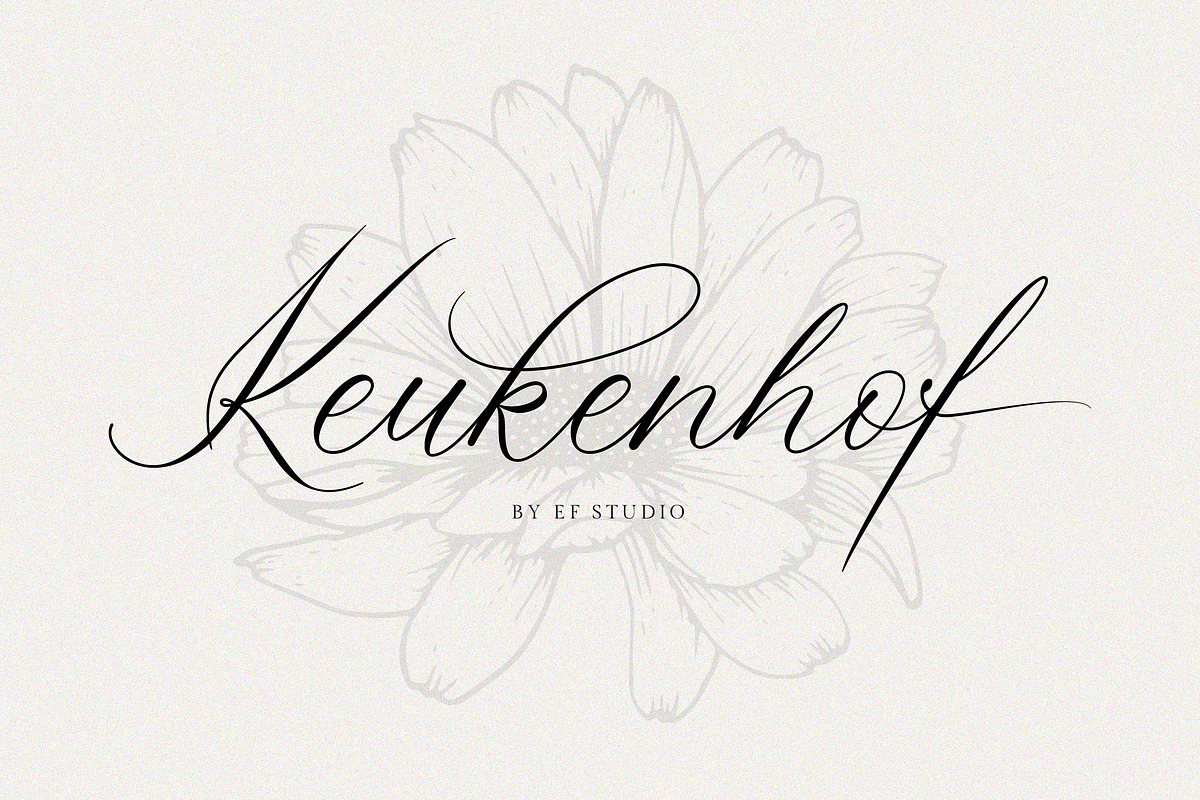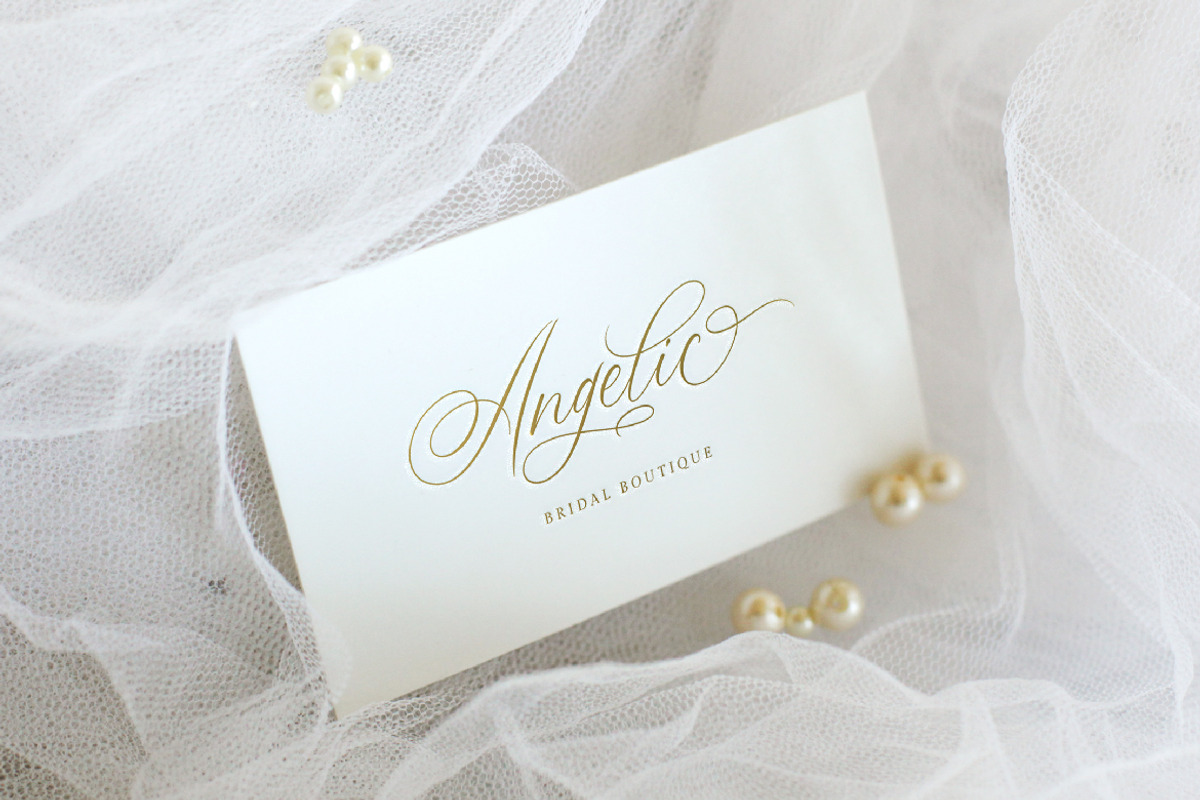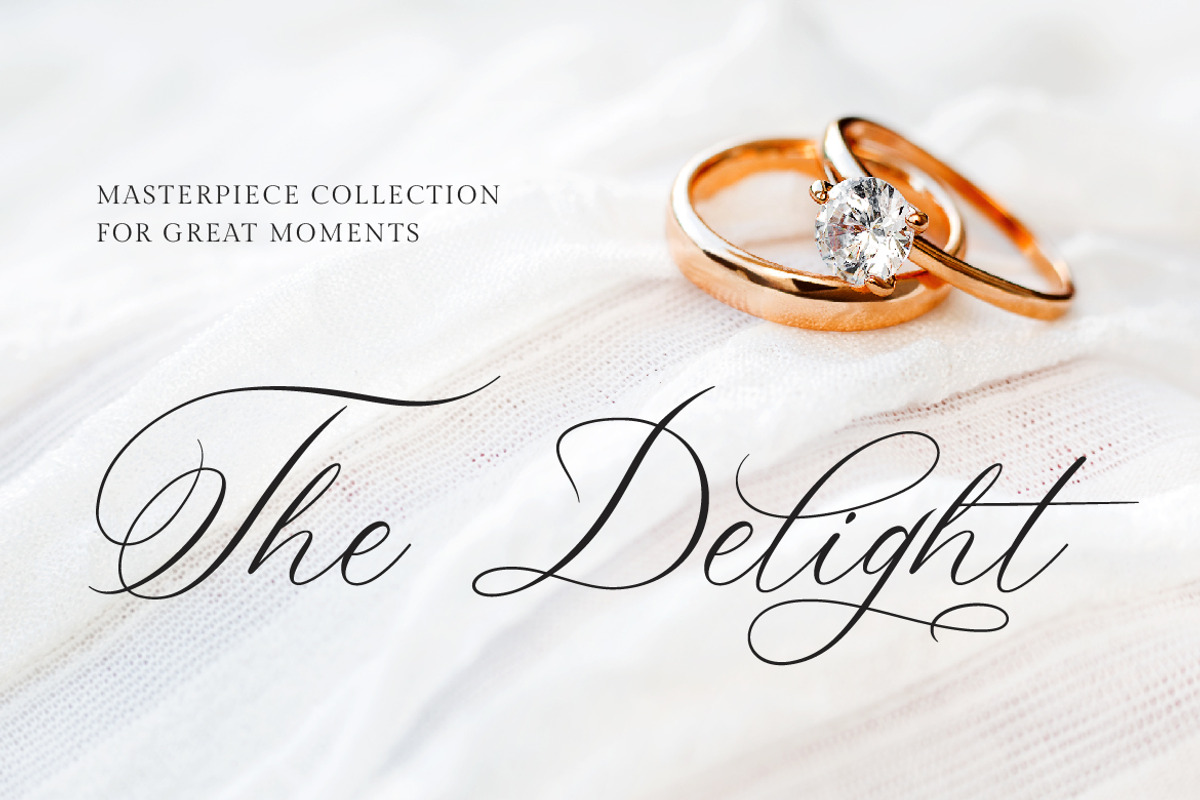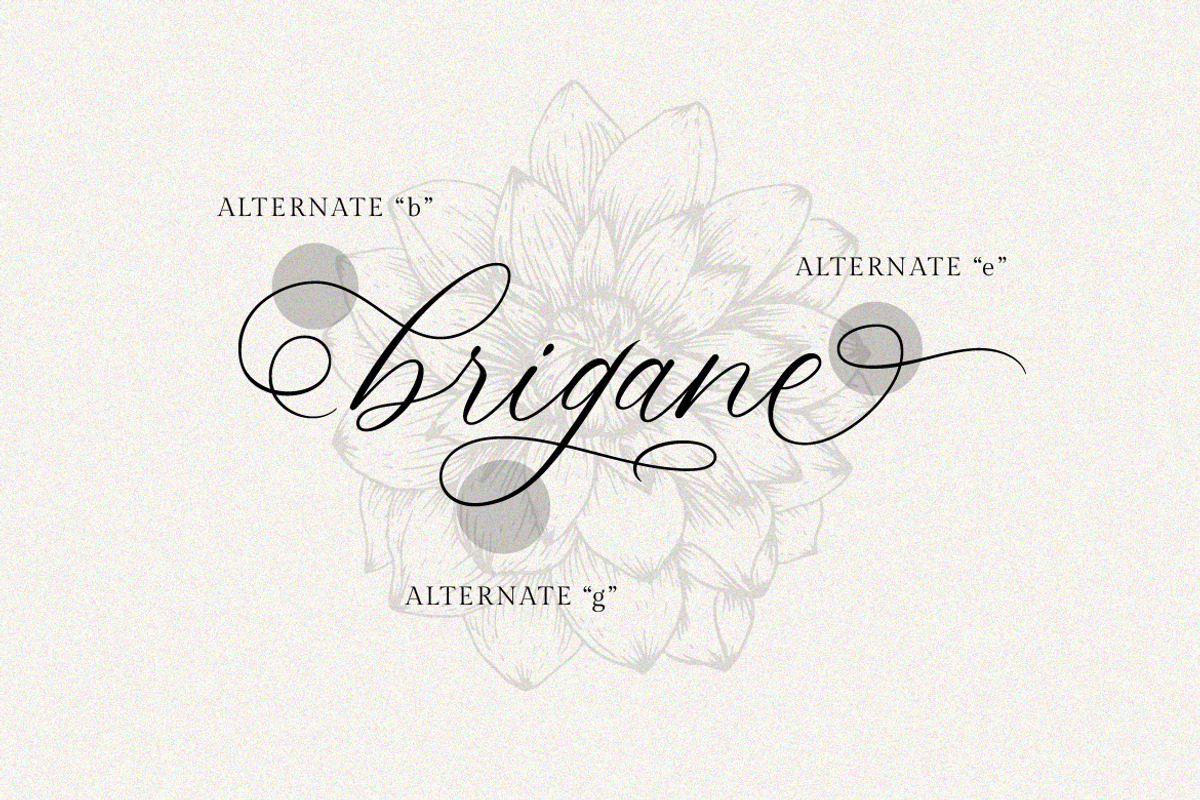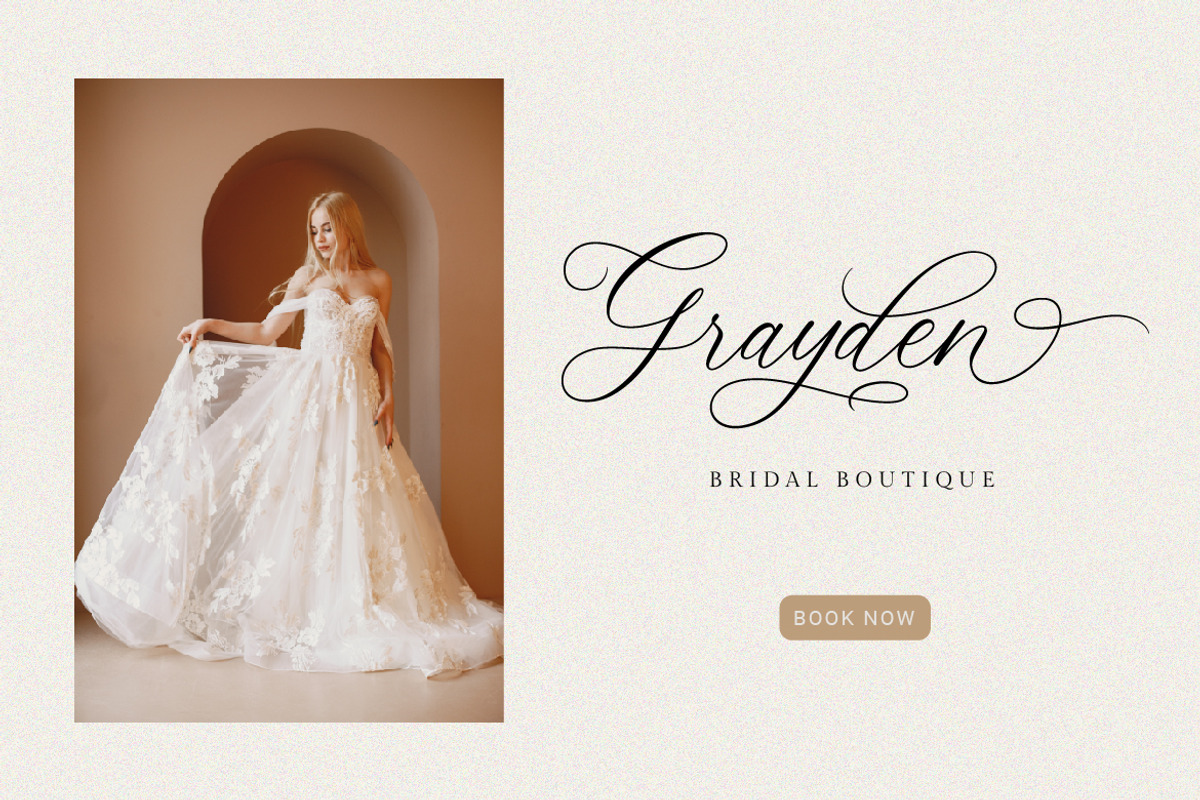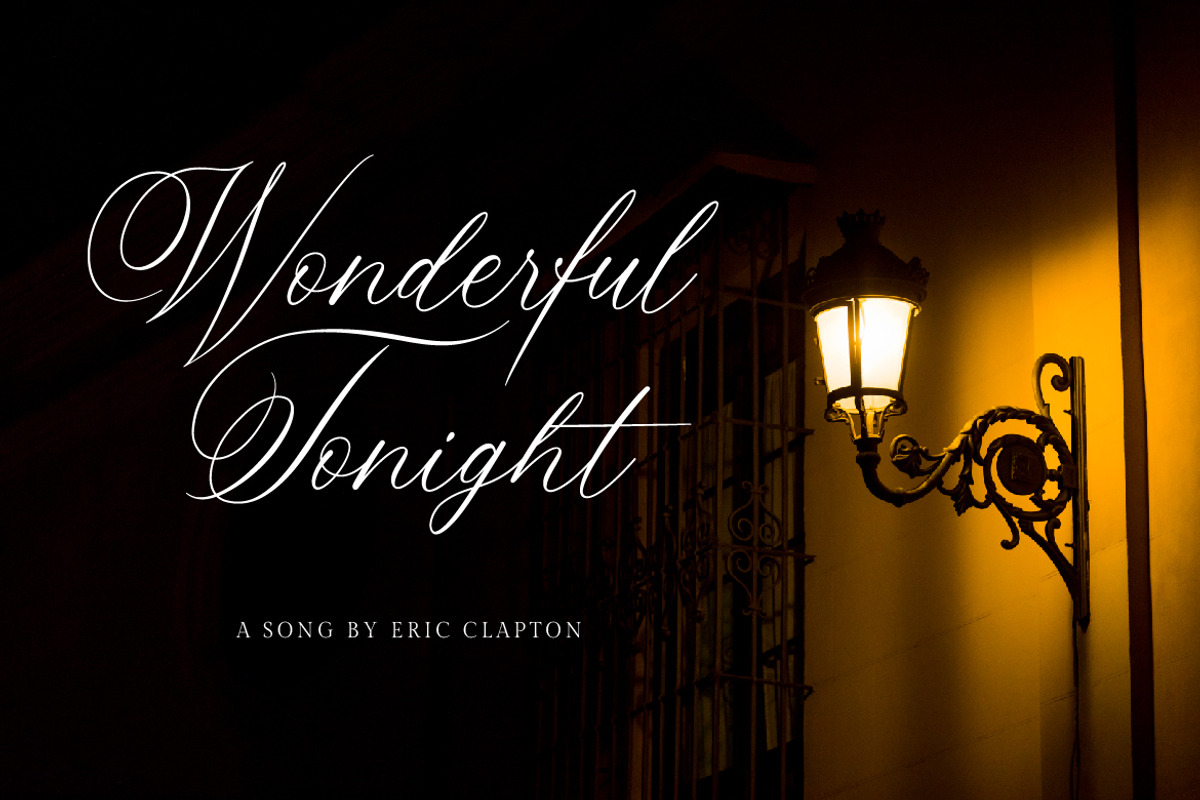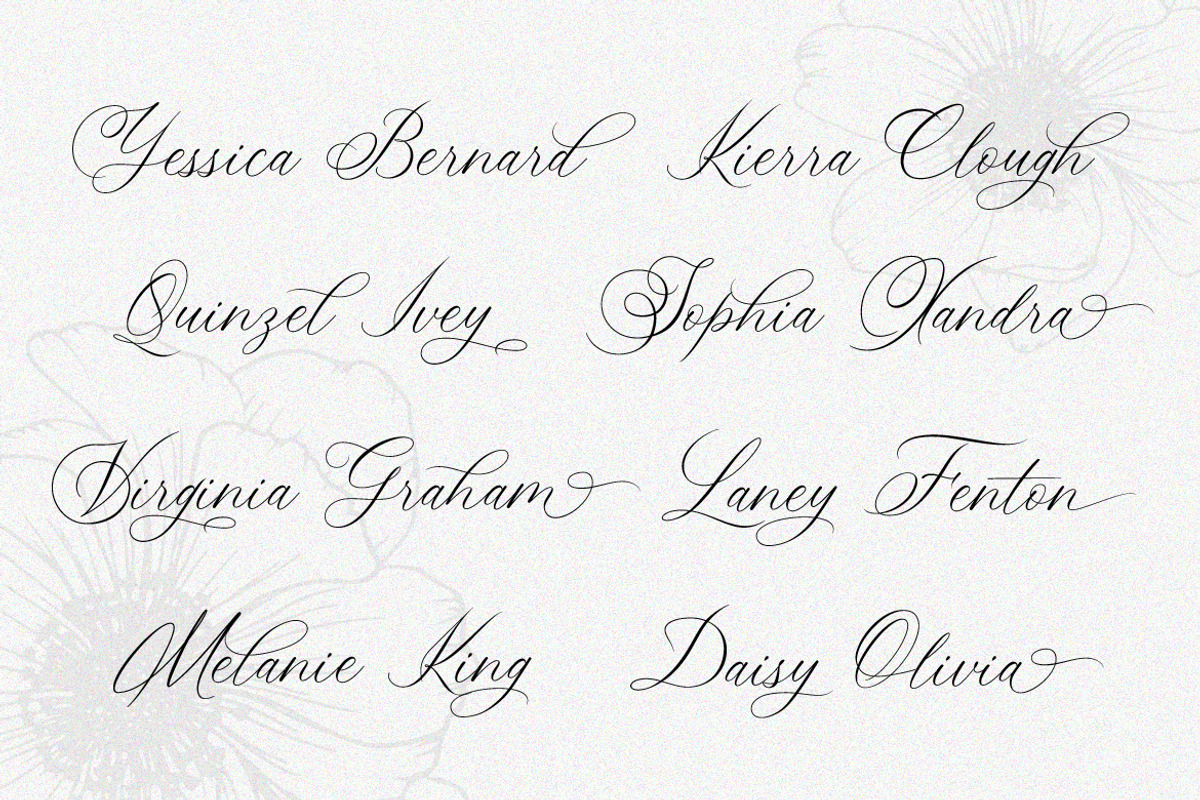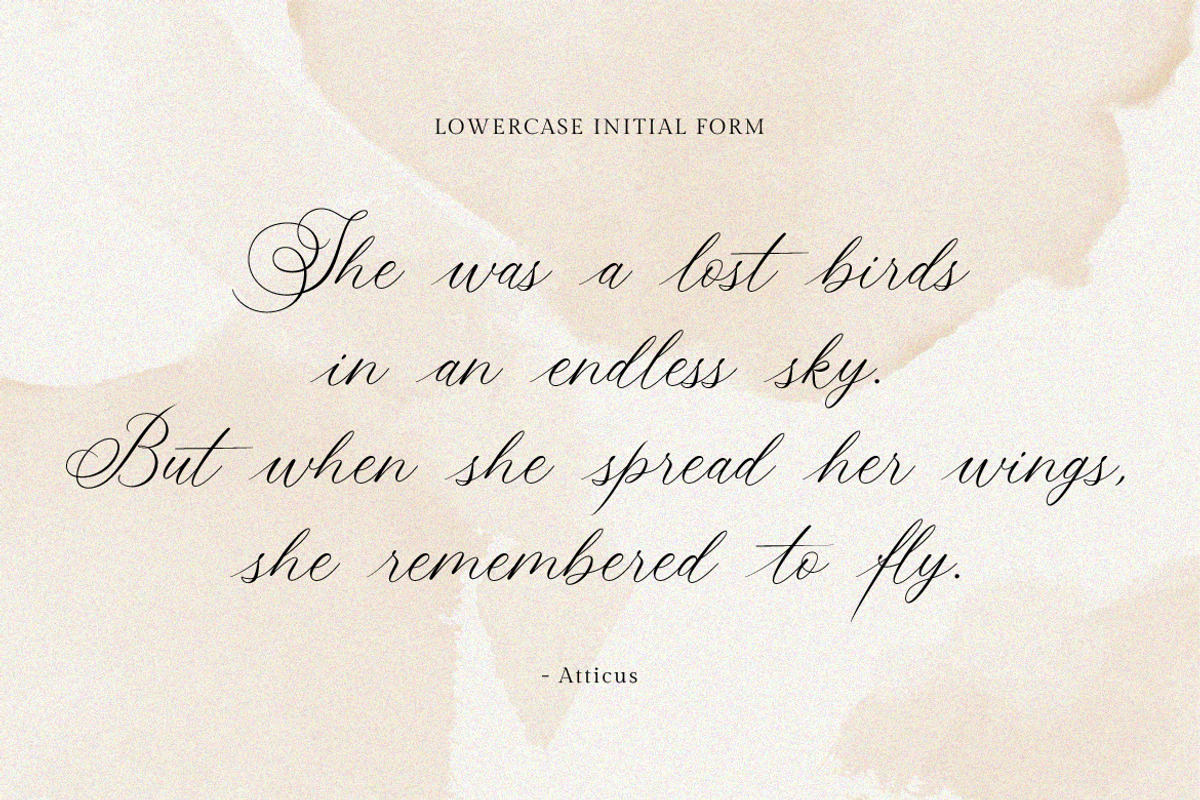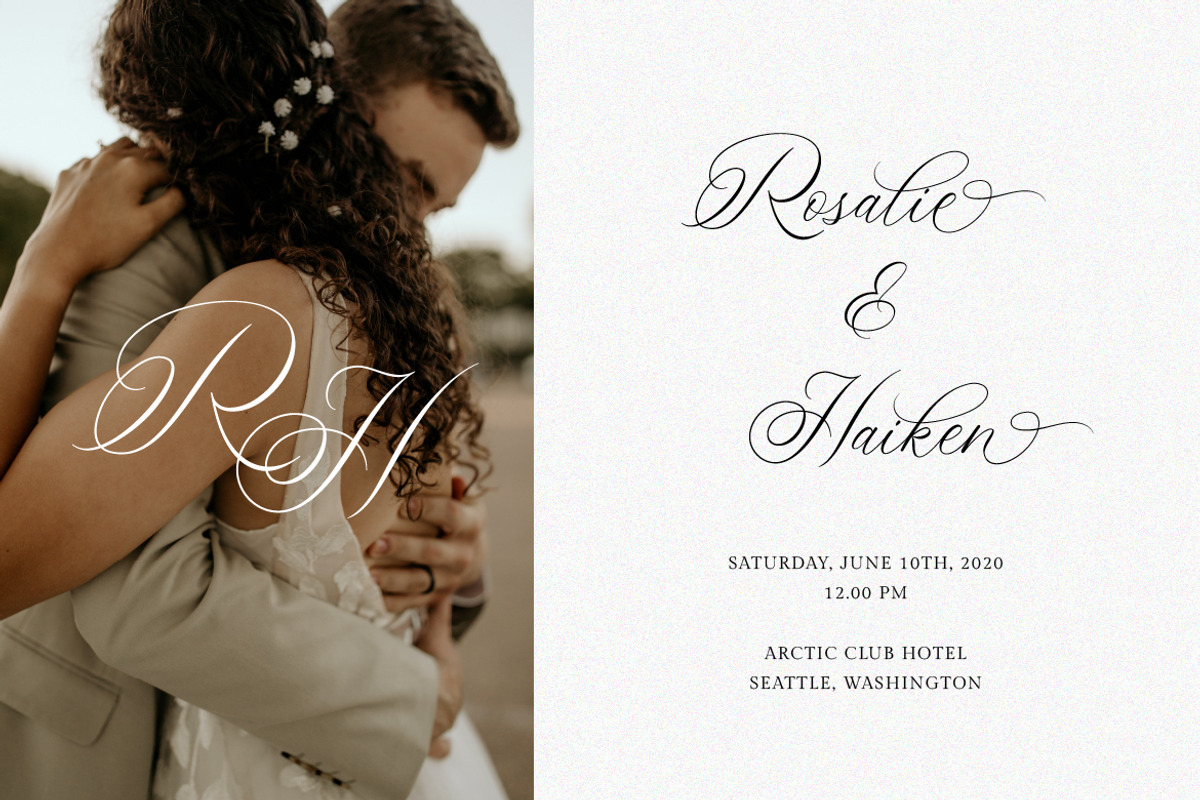
Keukenhof | Modern Calligraphy Font
Keukenhof is a modern calligraphic font that shows the beauty and luxury. Rich of various alternates curly lowercases that will make your project charming. It's perfect for elegant project. Such as wedding invitation, gift card, romantic quotes, elegant branding, and so on. You can get uppercase and lowercase letters, numeral and punctuation, beginning and ending swashes, lowercase alternates, lowercase initial form, and ligatures. Please look at preview pictures detaily.